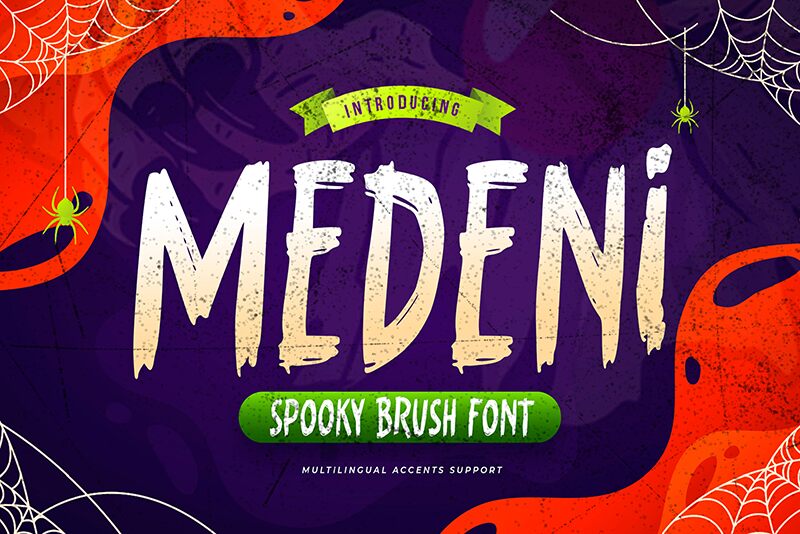
Medeni
Medeni, crafted by the visionary Gassstype, is a semi-bold brush font that boasts a condensed width, offering an artistic blend of precision and spontaneity. Its brush strokes are deliberate yet dynamic, creating an aesthetic that is both lively and controlled. The textured edges and varying stroke weights exemplify the hand-painted charisma inherent in its design.
The expressive nature of Medeni's characters makes it a versatile choice for projects requiring a personal touch or an organic feel. Ideal for branding, packaging, or editorial work where personality is paramount, this font infuses each word with distinctive energy.
Medeni's condensed style allows for impactful headlines without sacrificing space, making it equally suitable for bold statements on posters or in digital media. With its unique blend of contemporary flair and classic brush elements, Medeni invites designers to unleash their creativity on a canvas of typographic artistry.